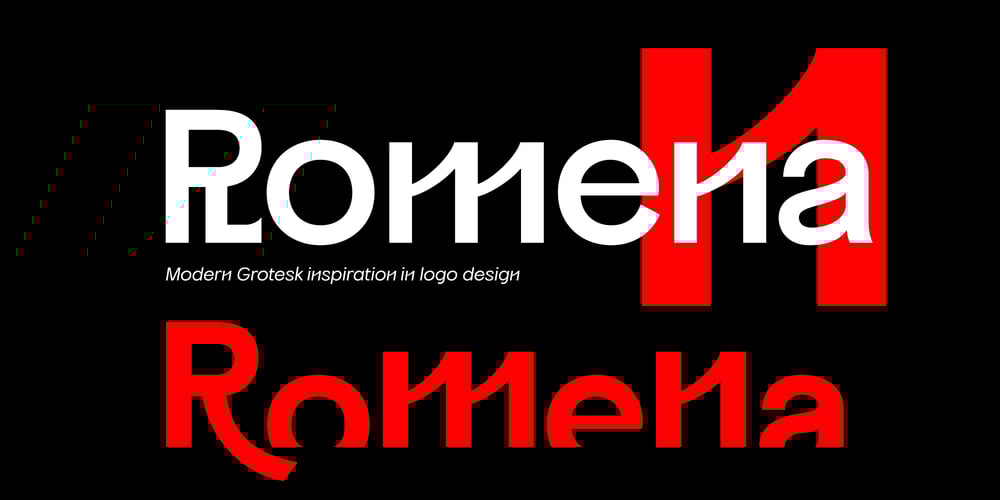
Romena
Romena font
Romena Font Family was designed by Ryul Davidson and published by Brenners Template. Romena contains 18 styles and family package options. It is a modern grotesque family that can feel strong power. Hairline Styles are designed to be thinner than the average Thin Styles and have a lower x-height than Black Styles. So when you design your typography using the entire font family, you get a great sense of balance and harmony. And with creative Alternates, you can make your logo and product branding design work unique. Cropped glyphs provide meaningful metaphors for logo design. Be sure to try the Stylistic Alternates and Ligatures this family has to offer.OpenType Features Stylistic Alternates – C, G, K, N, R, S, a, e, g, i, o, s, u, y Standard Ligatures – ff, ffi, fi Discretionary Ligatures – tt, rr Fractions Oldstyle Figures Tabular Figures Circled Numbers Multilingual Support Western Europe, Central/Eastern Europe, Baltic, Turkish, Romanian Basic Cyrillic Ukraine